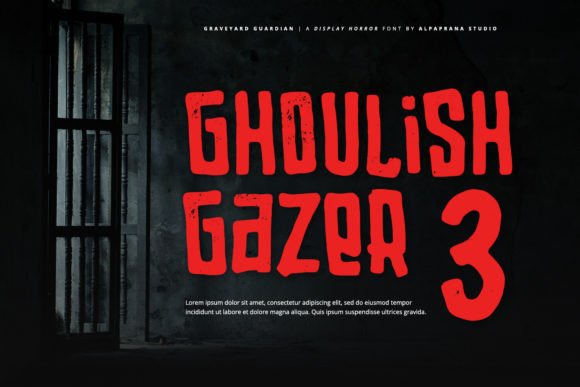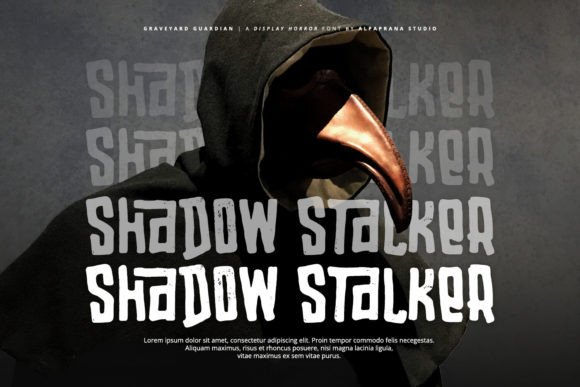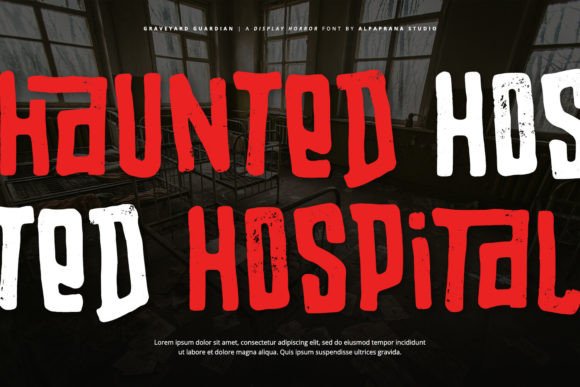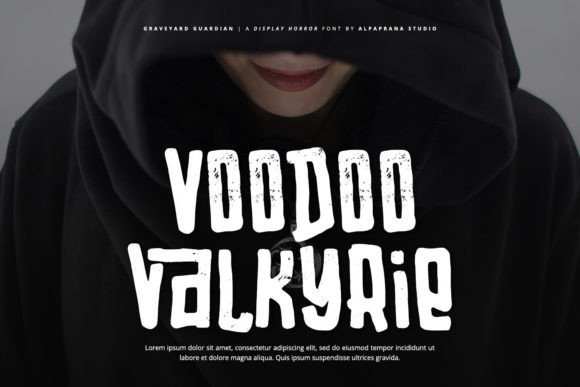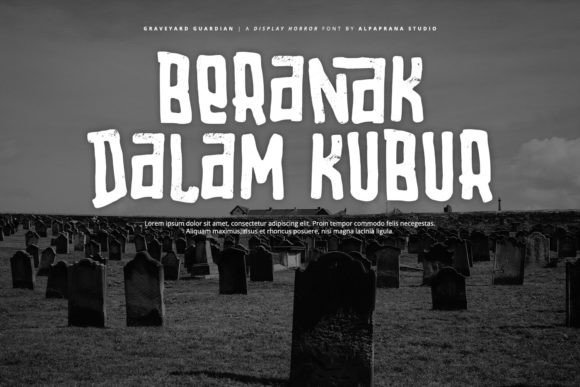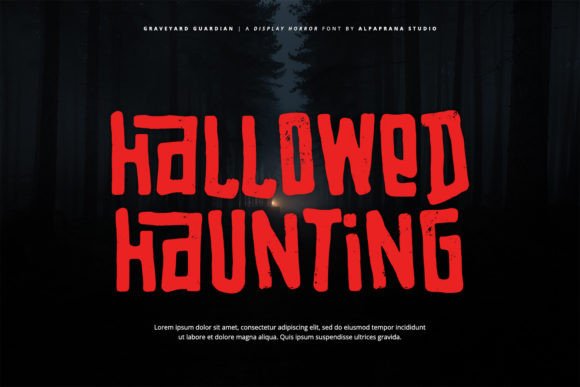
The Graveyard Guardian Font: A Spook-tacular Addition to Your Design Arsenal
I’ll never forget the time I was working on a Halloween-themed project for a client, and I just couldn’t find the right font to capture the essence of the season. The design needed to be modern, yet eerie; cute, yet spooky. That’s when I stumbled upon the Graveyard Guardian font. It was love at first sight! 💕
As a designer, I’ve learned that the right font can make or break a project. And, trust me, Graveyard Guardian is a game-changer. In this article, I’ll share my honest review of this amazing font, provide a practical guide on how to use it, and explore similar fonts that might tickle your fancy.
An Honest Review of Graveyard Guardian
- 💯 Unique and quirky design: Graveyard Guardian boasts a one-of-a-kind, modern horror aesthetic that’s perfect for a wide range of design projects.
- ✅ Cute and approachable feel: Despite its horror theme, this font has a surprisingly cute and friendly vibe that’s ideal for branding, logos, and more.
- 💻 Highly versatile: Use it for posters, t-shirts, book covers, packaging, and any other project that needs a touch of spooky whimsy.
- 🎨 OpenType features and glyphs: Graveyard Guardian comes with a range of OpenType features, glyphs, and stylistic alternates to help you customize your designs.
While Graveyard Guardian is an amazing font, there are a few minor quirks to be aware of:
- 🤔 Limited use for body text: Due to its display-focused design, Graveyard Guardian might not be the best choice for lengthy body text. Stick to headlines, titles, and short paragraphs for optimal impact.
- ⚠️ Some letters may require manual kerning: As with any font, you might need to adjust kerning for certain letter combinations to achieve optimal results.
The Backstory Behind Graveyard Guardian
Legend has it that Graveyard Guardian was inspired by a late-night stroll through a haunted cemetery. The font’s creator, a talented type designer, was captivated by the eerie yet charming atmosphere of the graveyard. They sought to bottle that magic into a font that would bring a touch of spooky whimsy to design projects. And so, Graveyard Guardian was born! 🎃
Q: What type of projects is Graveyard Guardian best suited for?
A: Graveyard Guardian is perfect for branding, logo design, lettering, logotype, clothing, packaging, posters, shopping bags, t-shirts, book covers, photography, special events, and other design projects that require a modern horror aesthetic.
Q: Does Graveyard Guardian come with OpenType features?
A: Yes, Graveyard Guardian includes a range of OpenType features, glyphs, and stylistic alternates to help you customize your designs.